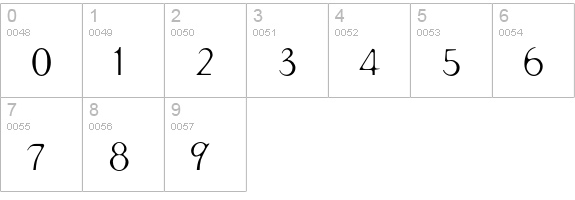
TemaCantante-Regular is the standard, neutral variant in the TemaCantante typeface family \xE2\x80\x94 well suited to general body text, paragraphs, and standard typographic work.
TemaCantante-Regular font is a versatile and stylish typeface that is perfect for adding a touch of elegance to your designs. With its clean lines and modern look, this font is sure to make a statement. Whether you're creating a logo, designing a website, or crafting a promotional flyer, TemaCantante-Regular font will elevate your project to the next level. What makes TemaCantante-Regular font even more appealing is that it is available for free download at FontsMarket.com. This means you can enjoy the beauty and functionality of this font without having to spend a dime. It's a great opportunity to enhance your design arsenal without breaking the bank. The wide range of characters and glyphs included in TemaCantante-Regular font allow for creative flexibility and endless possibilities. Whether you're looking for a bold and eye-catching headline or a refined and sophisticated body text, this font has you covered. Its legibility and readability make it suitable for both print and digital projects. Not only is TemaCantante-Regular font visually stunning, but it also offers ease of use. Its smooth curves and well-crafted letterforms ensure a seamless reading experience. Additionally, its compatibility with various design software and operating systems make it a reliable and versatile choice for designers of all skill levels. TemaCantante-Regular font is a true gem in the world of typography, and its availability for free download at FontsMarket.com makes it even more desirable. So why wait? Enhance your designs today with this elegant and captivating font.